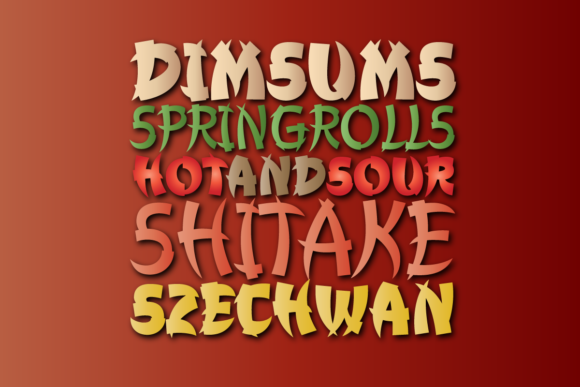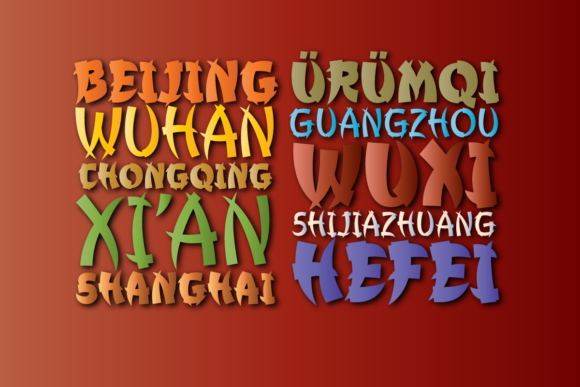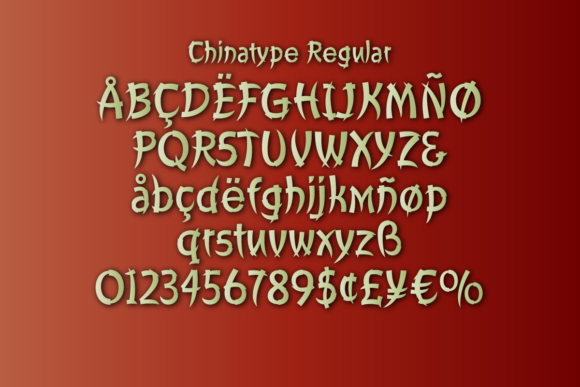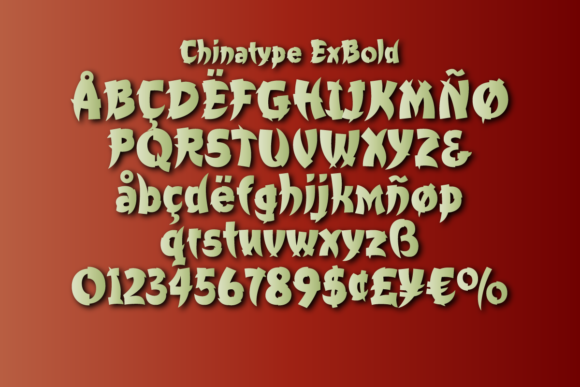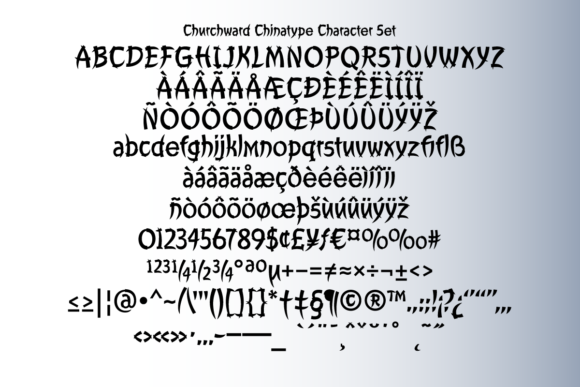
Unleash the Spookiness: Exploring the Churchward Chinatype Font
Are you on the hunt for a font that screams Halloween spirit? Look no further than the Churchward Chinatype Font! This incredibly cool, spooky, and unique display font is sure to elevate your October designs and Halloween party decorations to a whole new level. With its distinctive and eerie feel, Churchward Chinatype is the perfect addition to any design project that requires a touch of macabre whimsy.
The Origins of Churchward Chinatype
Churchward Chinatype is a distinctive font that draws inspiration from traditional typefaces, but with a haunting twist. Its unique design makes it an excellent choice for designers and crafters looking to add a touch of spookiness to their work. Whether you’re creating invitations for a Halloween party, designing eerie posters, or crafting eye-catching titles for horror-themed projects, this font is sure to make a lasting impression.
What Makes Churchward Chinatype So Special?
So, what sets Churchward Chinatype apart from other fonts? Here are a few key features that make it an incredibly cool and unique display font:
- Unique Letterforms: Churchward Chinatype boasts letterforms that are both intriguing and unsettling. The font’s design is characterized by its bold lines, dramatic curves, and an overall aesthetic that feels both vintage and eerie.
- Versatility: Despite its spooky vibe, Churchward Chinatype can be used in a variety of design projects beyond Halloween and October themes. Its distinctive style can add a touch of gothic elegance to wedding invitations, or a futuristic feel to tech-related designs.
- Ease of Use: This font is incredibly easy to use, making it accessible to designers of all skill levels. Whether you’re a seasoned professional or a DIY crafter, you’ll find Churchward Chinatype simple to integrate into your projects.
Ideas for Using Churchward Chinatype
The only limit to using Churchward Chinatype is your imagination! Here are some ideas to get you started:
- Halloween Party Invitations: Create spooky and inviting party invites that set the tone for a howling good time.
- Eerie Posters: Design eye-catching posters for horror movies, haunted houses, or spooky events.
- Crafting Projects: Add a touch of Halloween spirit to your crafting projects, such as DIY decorations, scrapbooking, or card making.
- Social Media Graphics: Elevate your social media presence with spooky graphics that are sure to grab attention.
Tips for Getting the Most Out of Churchward Chinatype
To make the most of this unique font, consider the following tips:
- Experiment with Colors: Churchward Chinatype looks great in bold, vibrant colors. Experiment with different hues to find the perfect combination for your design.
- Mix and Match: Don’t be afraid to combine Churchward Chinatype with other fonts to create a unique visual effect.
- Play with Texture: Add depth and interest to your design by incorporating textures or patterns that complement the font’s eerie feel.
| Author | BluHead Studio |
Churchward Chinatype is an incredibly cool, spooky, and unique display font that’s sure to add a touch of Halloween magic to your designs. With its distinctive letterforms, versatility, and ease of use, this font is perfect for designers and crafters looking to create eye-catching and eerie projects. So why wait? Unleash your creativity and let Churchward Chinatype cast a spell on your audience!